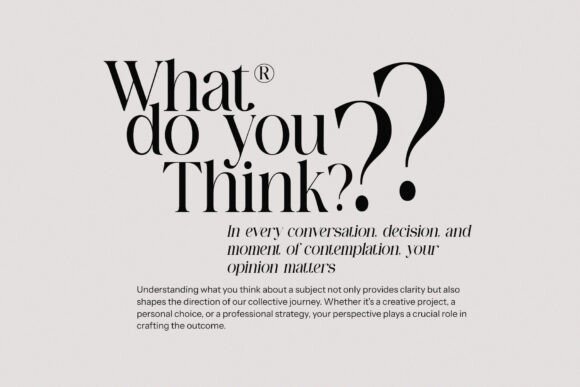
Elegant Font
Elegant Font: An elegant font has smooth, stylish letters with thin lines and graceful curves, giving it a classy and sophisticated look.